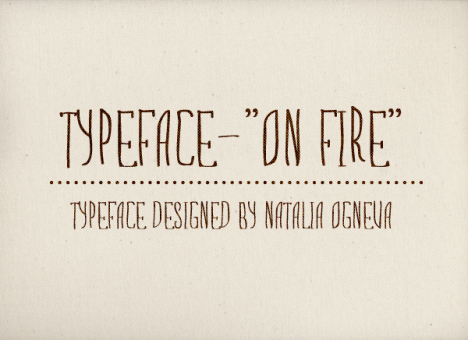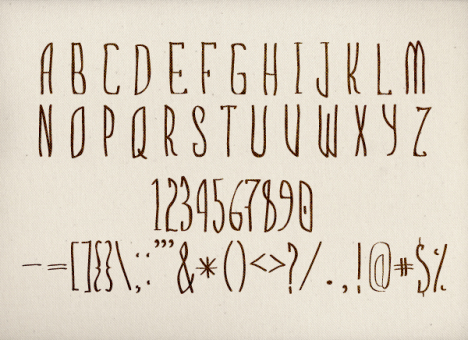
ON FIRE
Script - Handwritten.
Slim elegant font, grate for headings and titles.
It is a very personal font was developed for my personal identity and now I would like to share it with the rest of you. I hope you will enjoy it :)